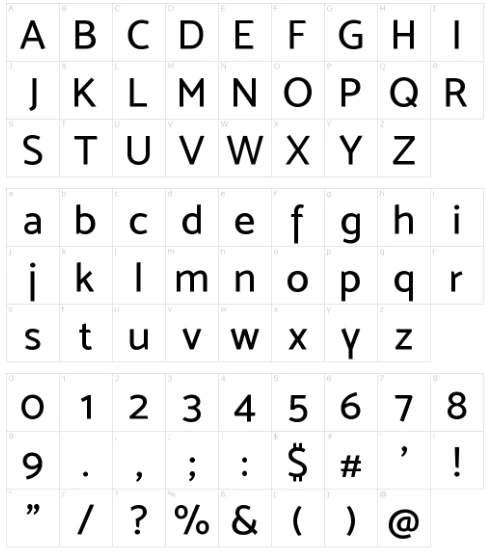
Mosk Sans is a noble, clean, and linear sans serif that will provide a modern, crisp, and elegant touch to your design. Iulian Maftei created and shared the font. Thanks to the lovely typeface, your design project will stand out from the crowd. The process of downloading the font is also very easy. Before installing the fonts, you must first extract them from the ZIP or RAR file, then: Go to Windows 10/8/7 and Install the Font by right-clicking on it.
This font is ideal for headlines, logos, and other creative projects. Because it comes in a variety of font weights, it also works well as body text. The font will also look fantastic in interactions as captions or in between scenes in the movies.
| Style | Sans-Serif. |
| Designer | Iulian Maftei |